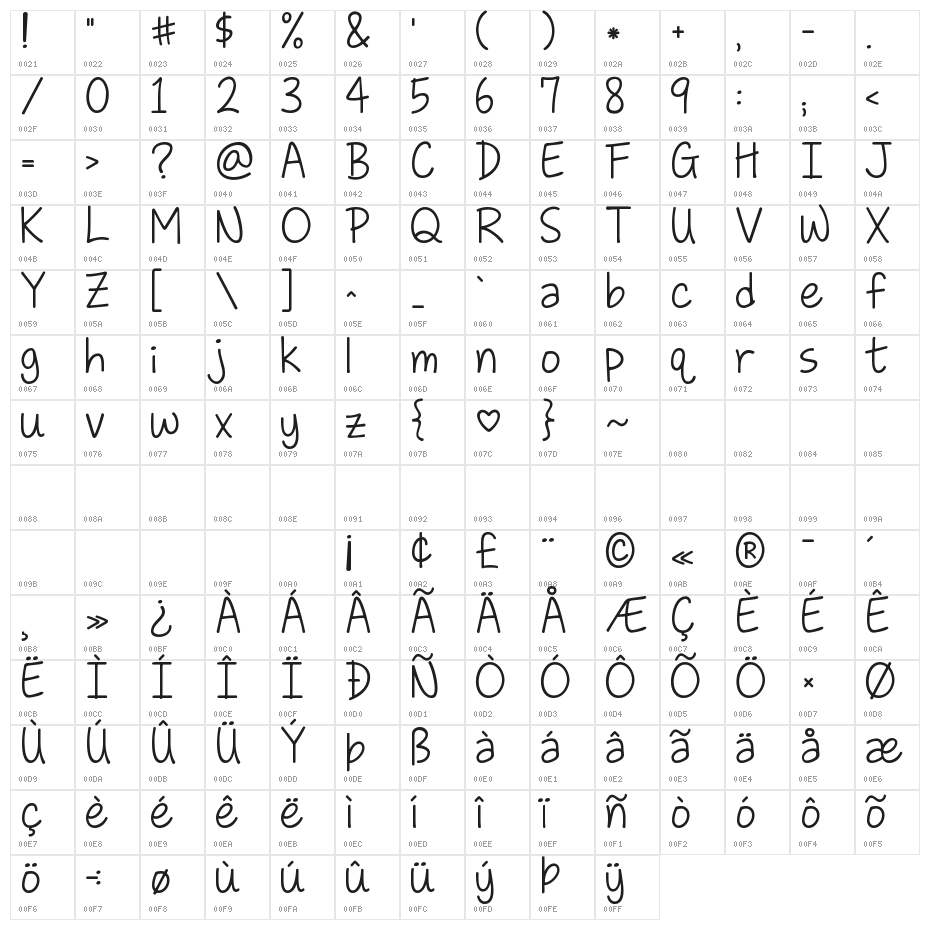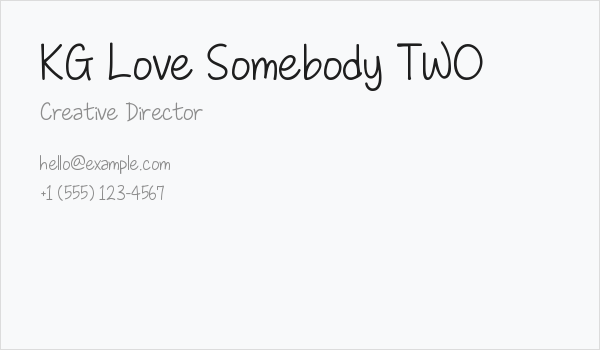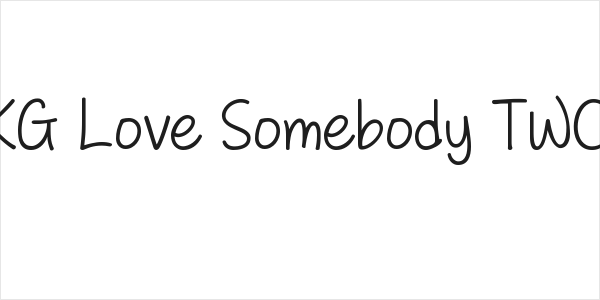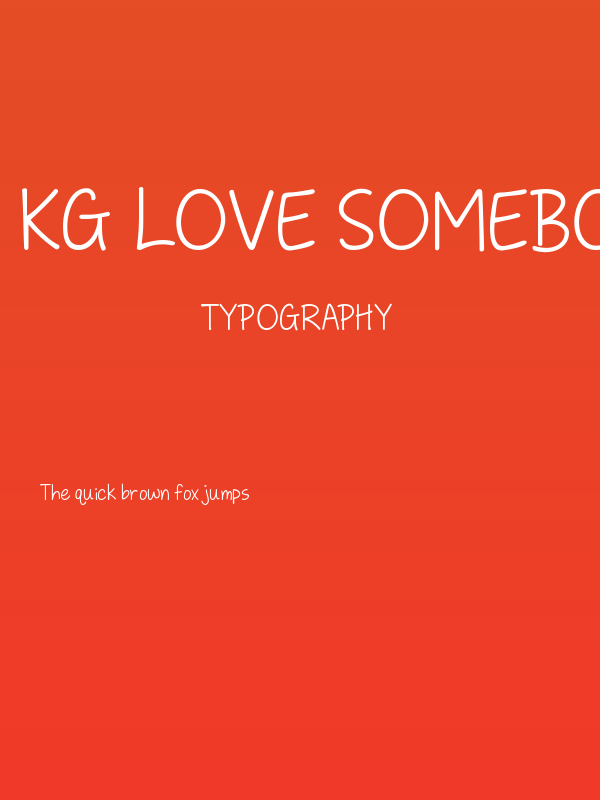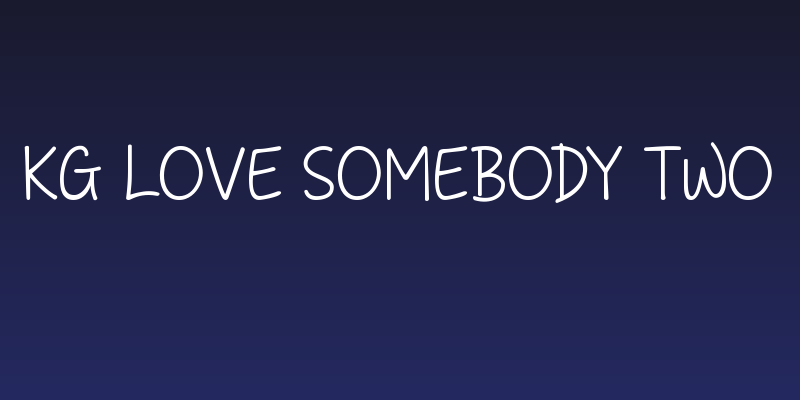
KG Love Somebody TWO Font
KG Love Somebody TWO Description
This font features a playful and casual handwritten style, characterized by its smooth, rounded edges and slightly irregular letterforms. The uppercase and lowercase letters maintain a consistent flow, giving it a friendly and approachable appearance. The numerals and special characters are designed to match the overall aesthetic, ensuring a cohesive look across all text. Its informal nature makes it ideal for projects that require a personal touch or a relaxed vibe.
| Use Case | Headlines, Informal text, Personal projects |
| Proposed Projects | Ideal for greeting cards, children's books, personal blogs, and informal branding projects. |